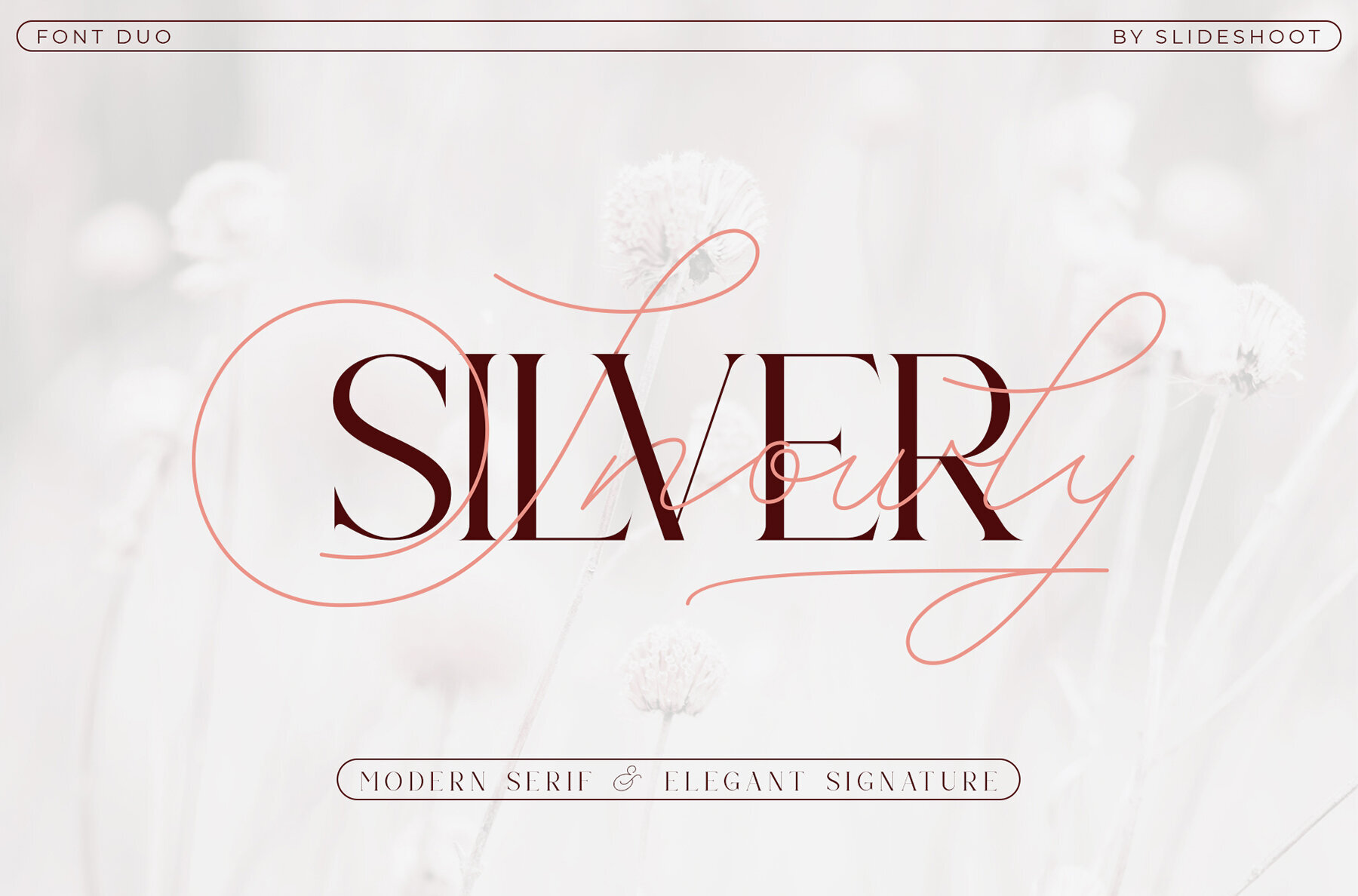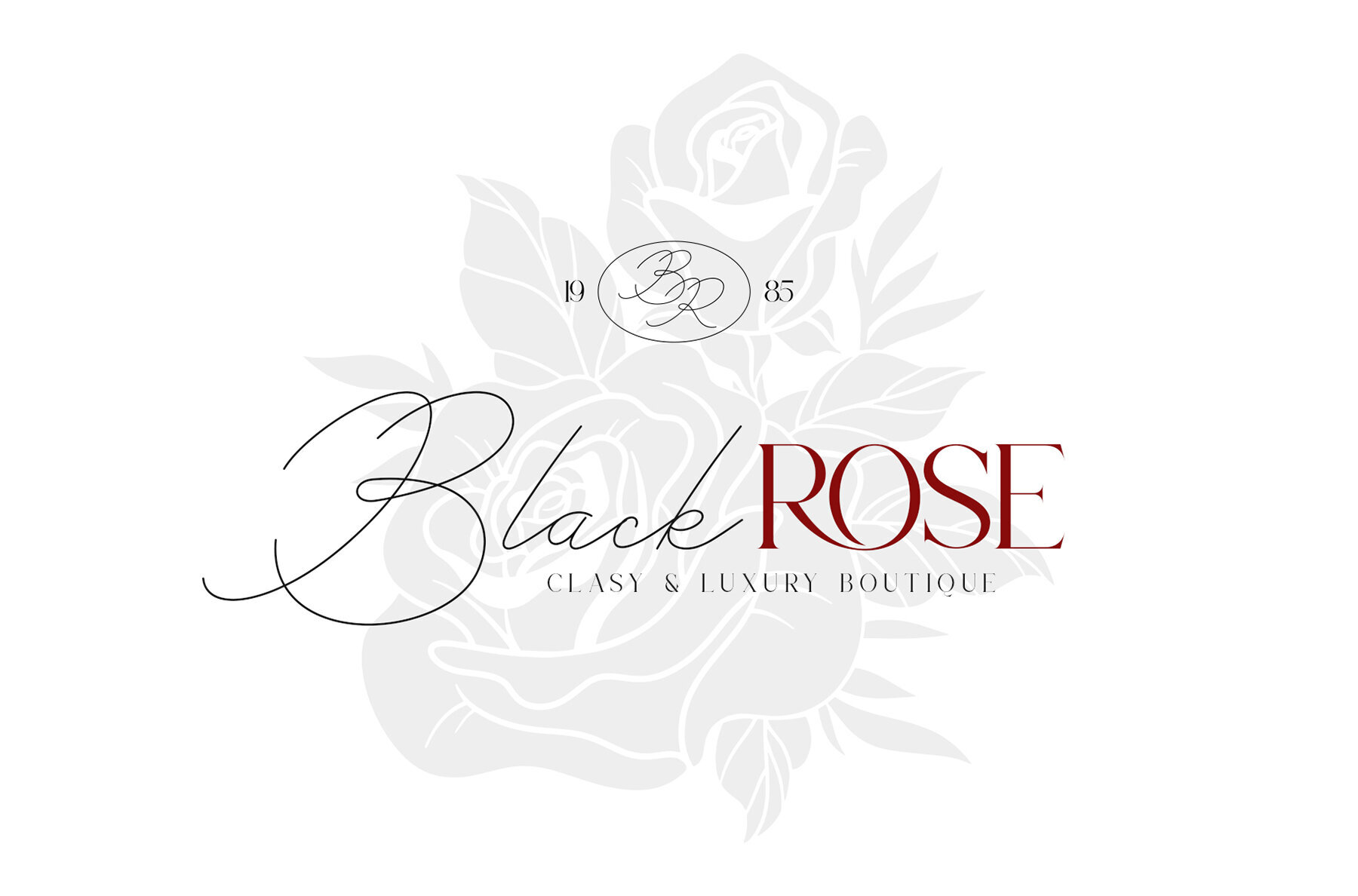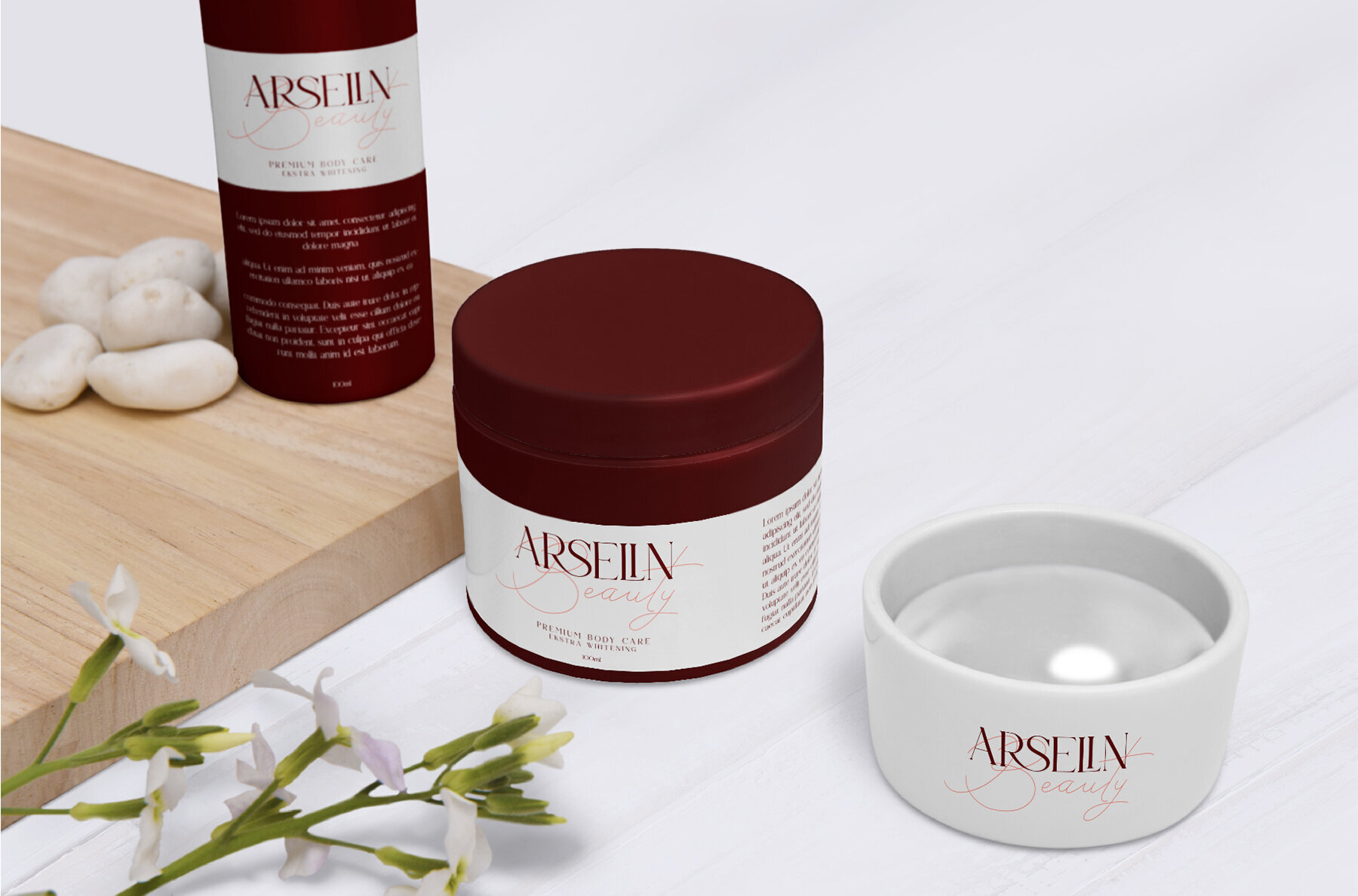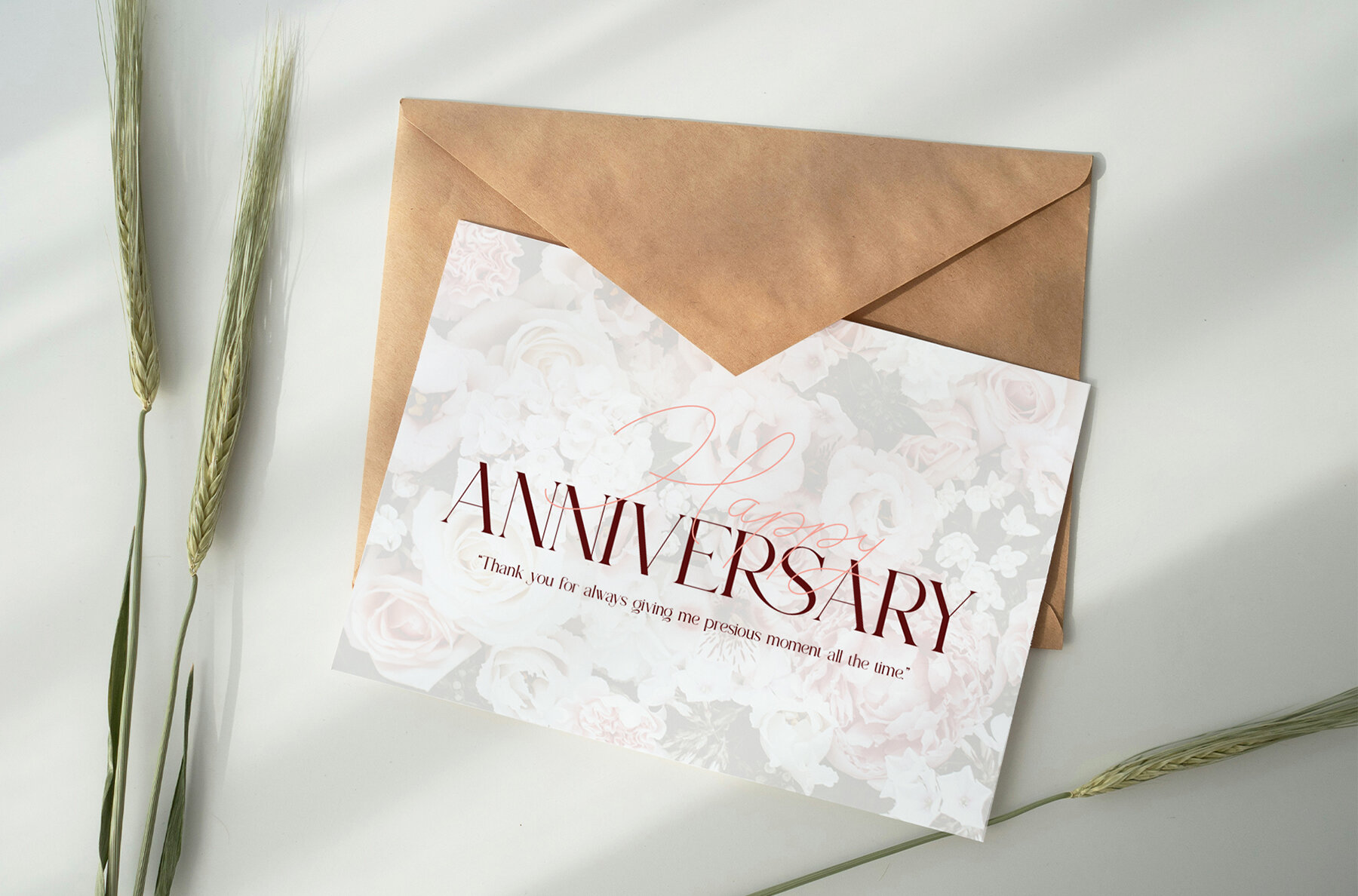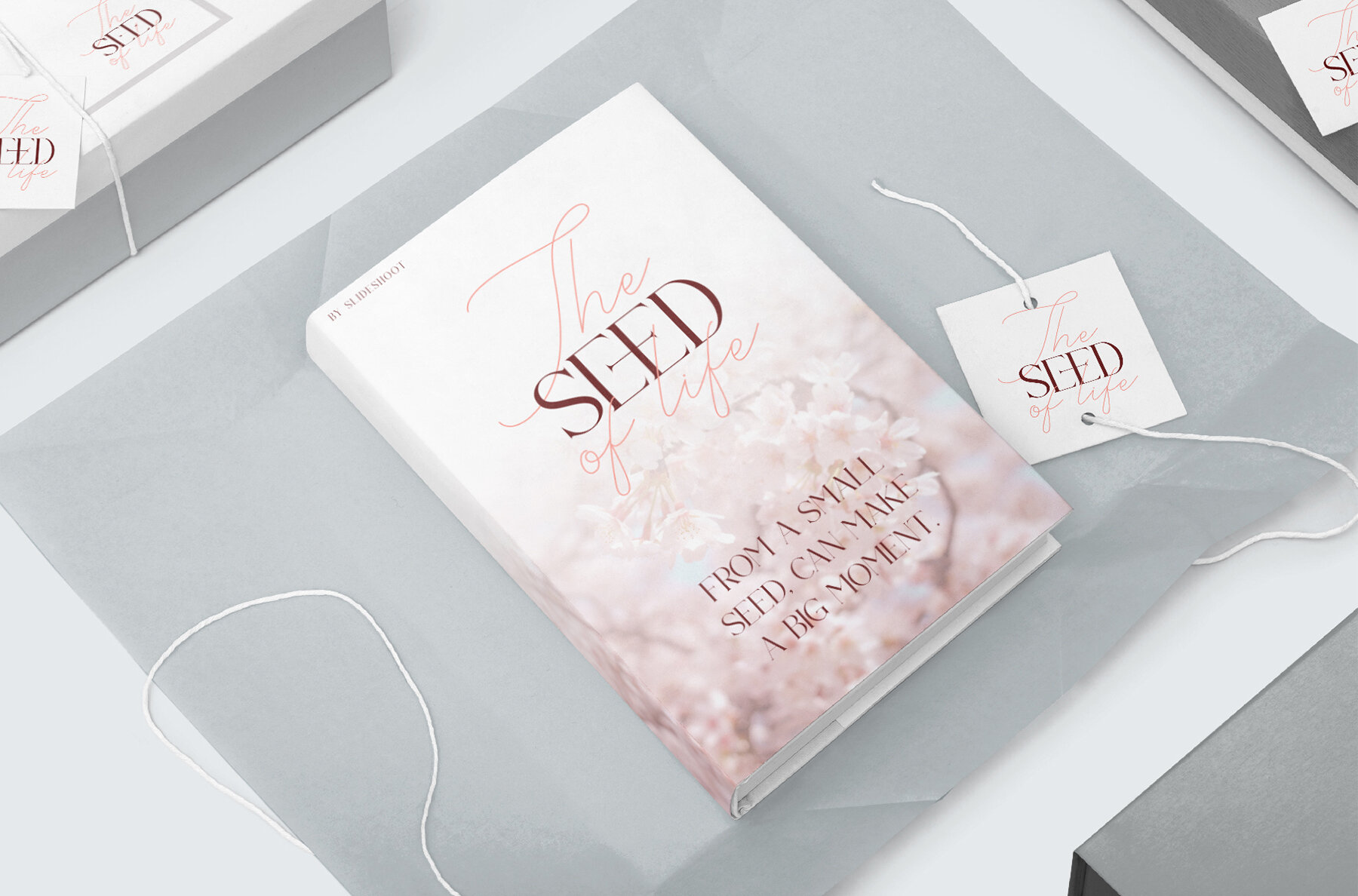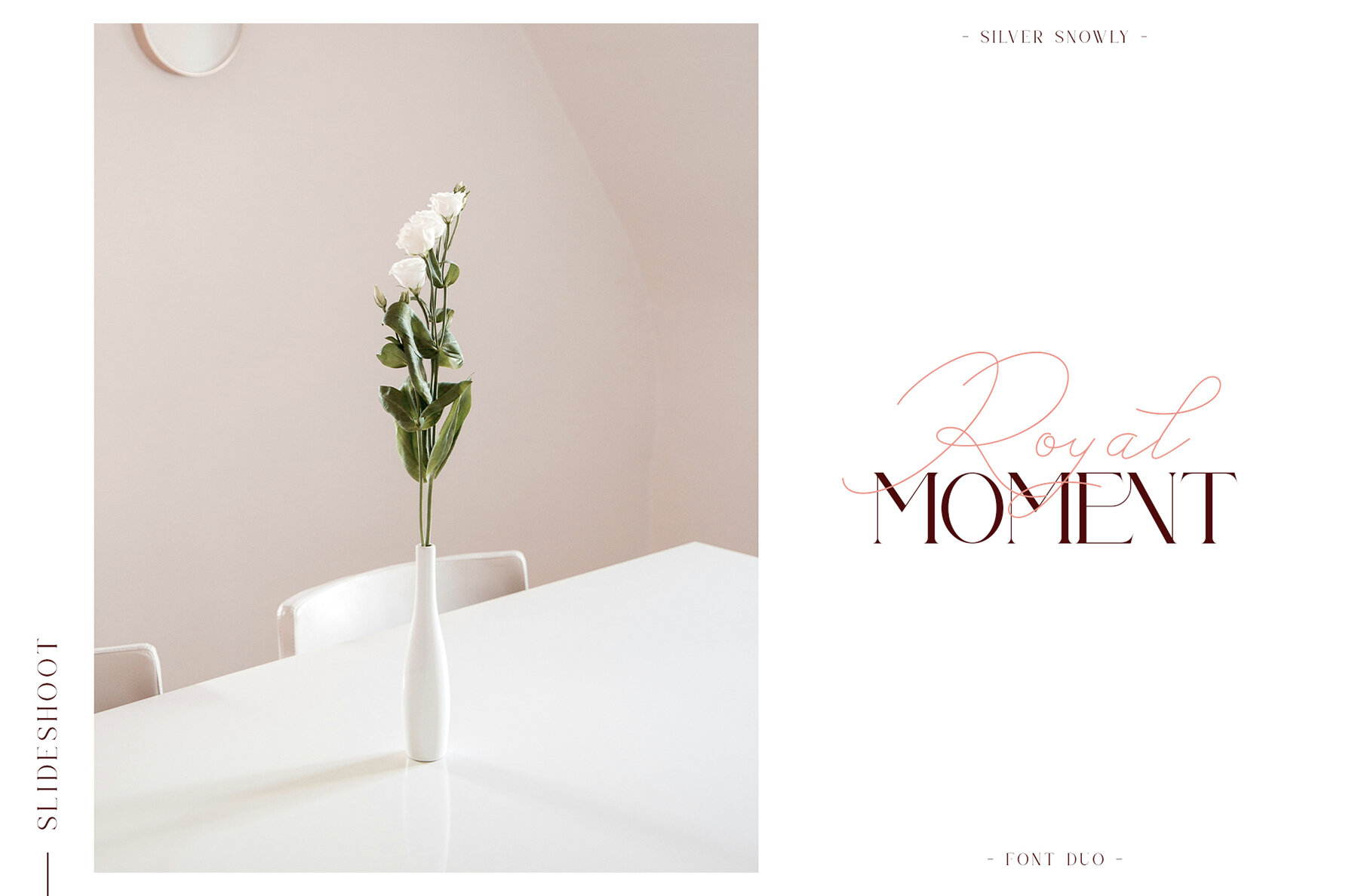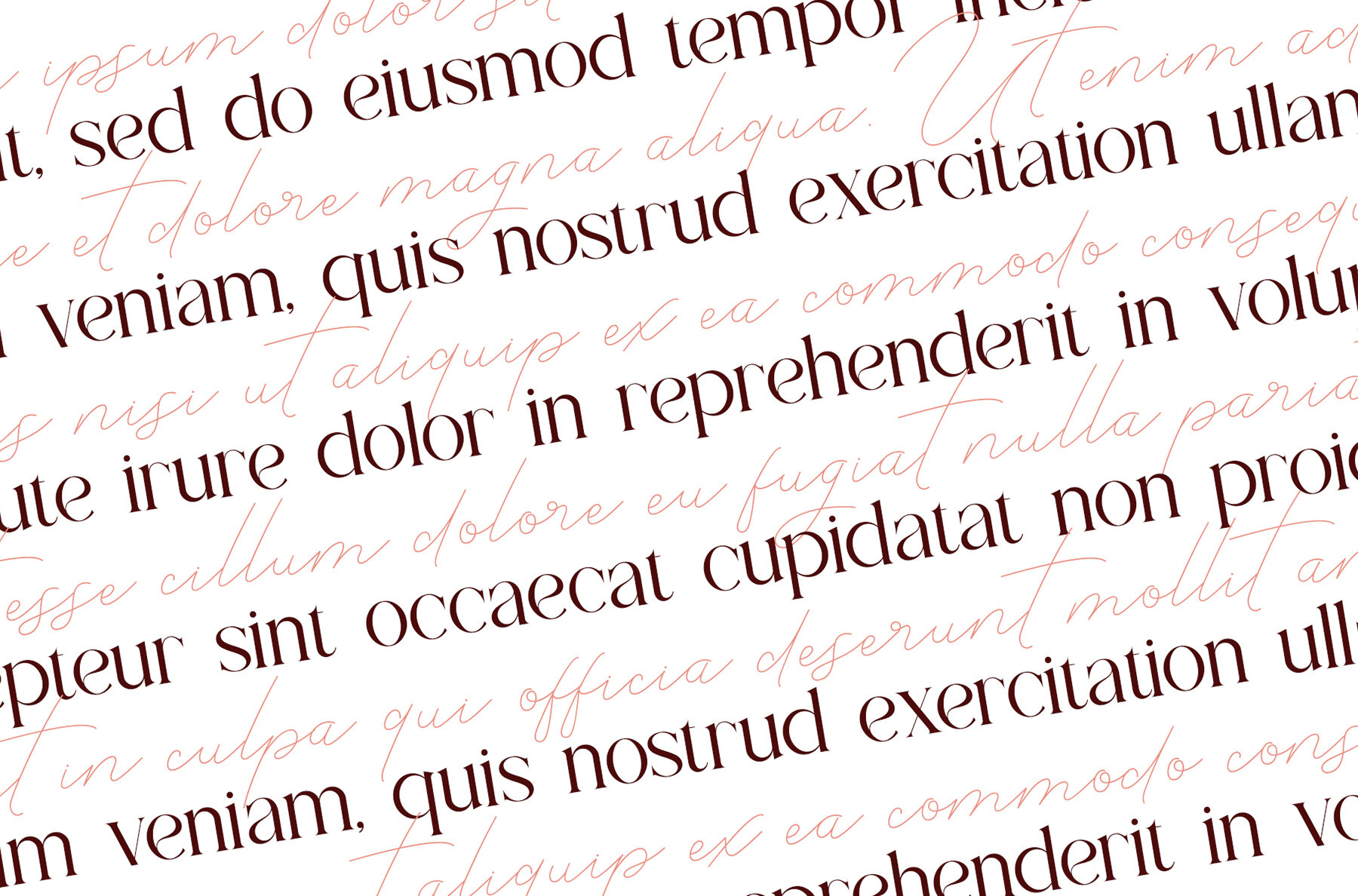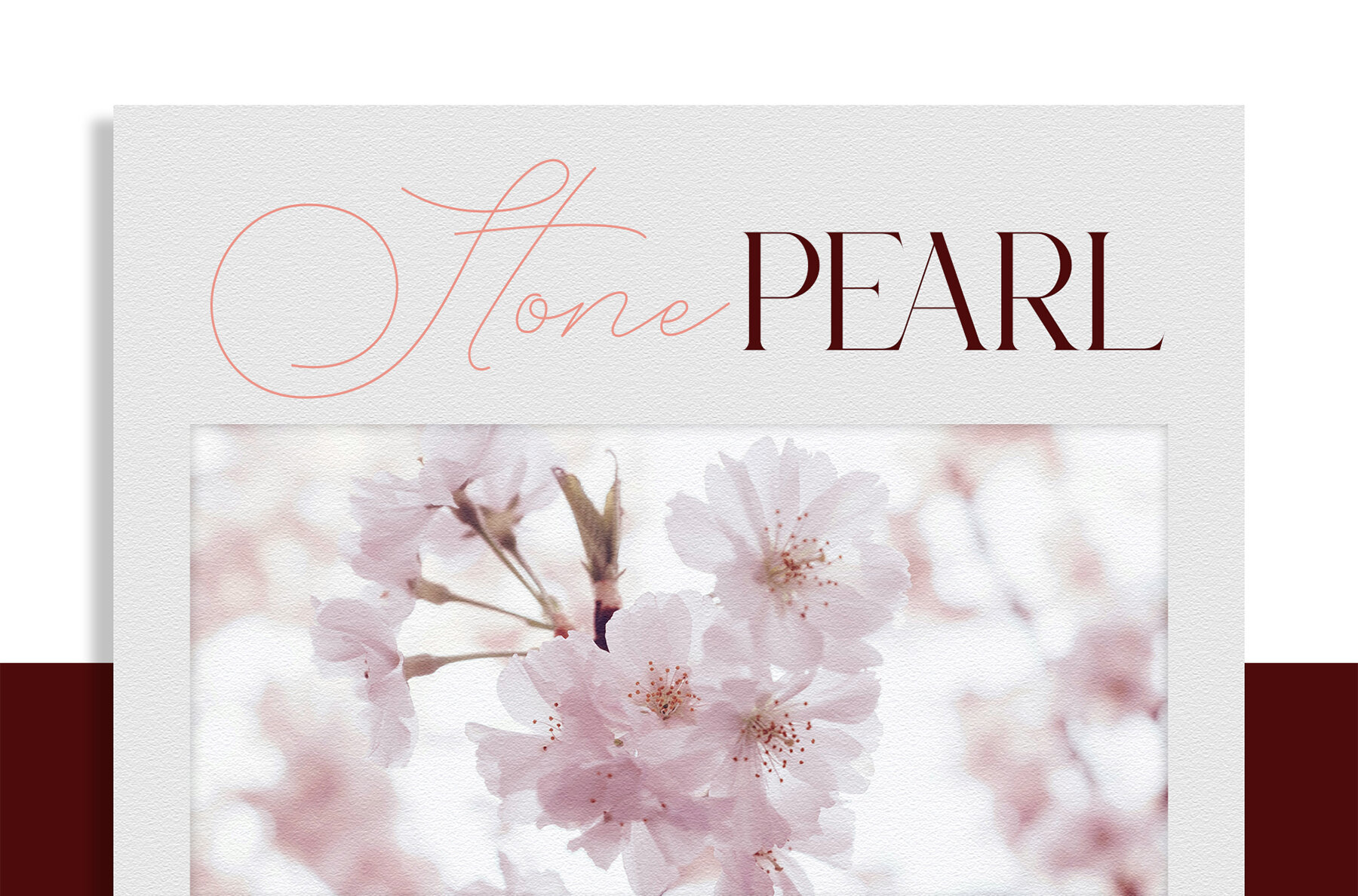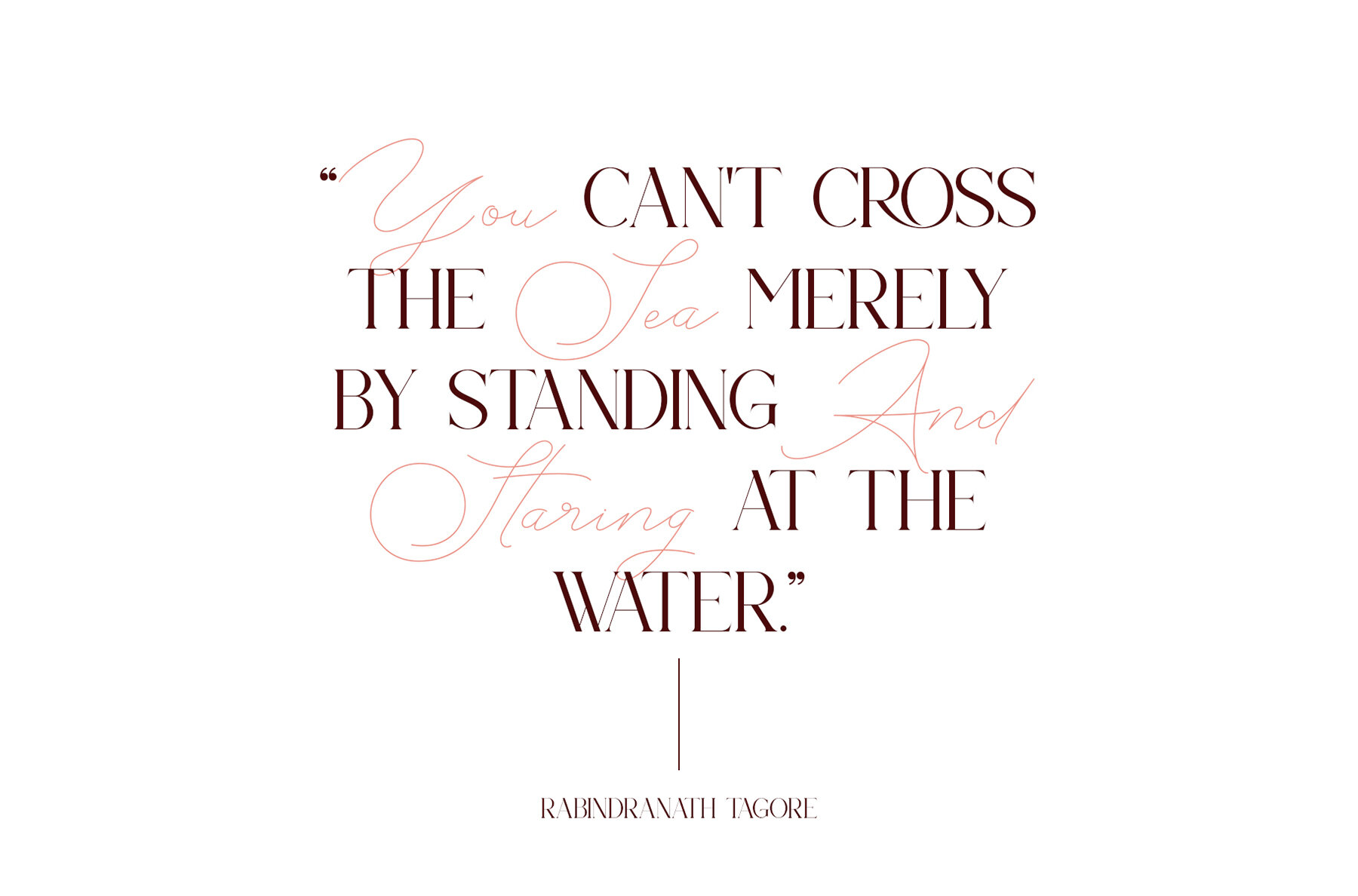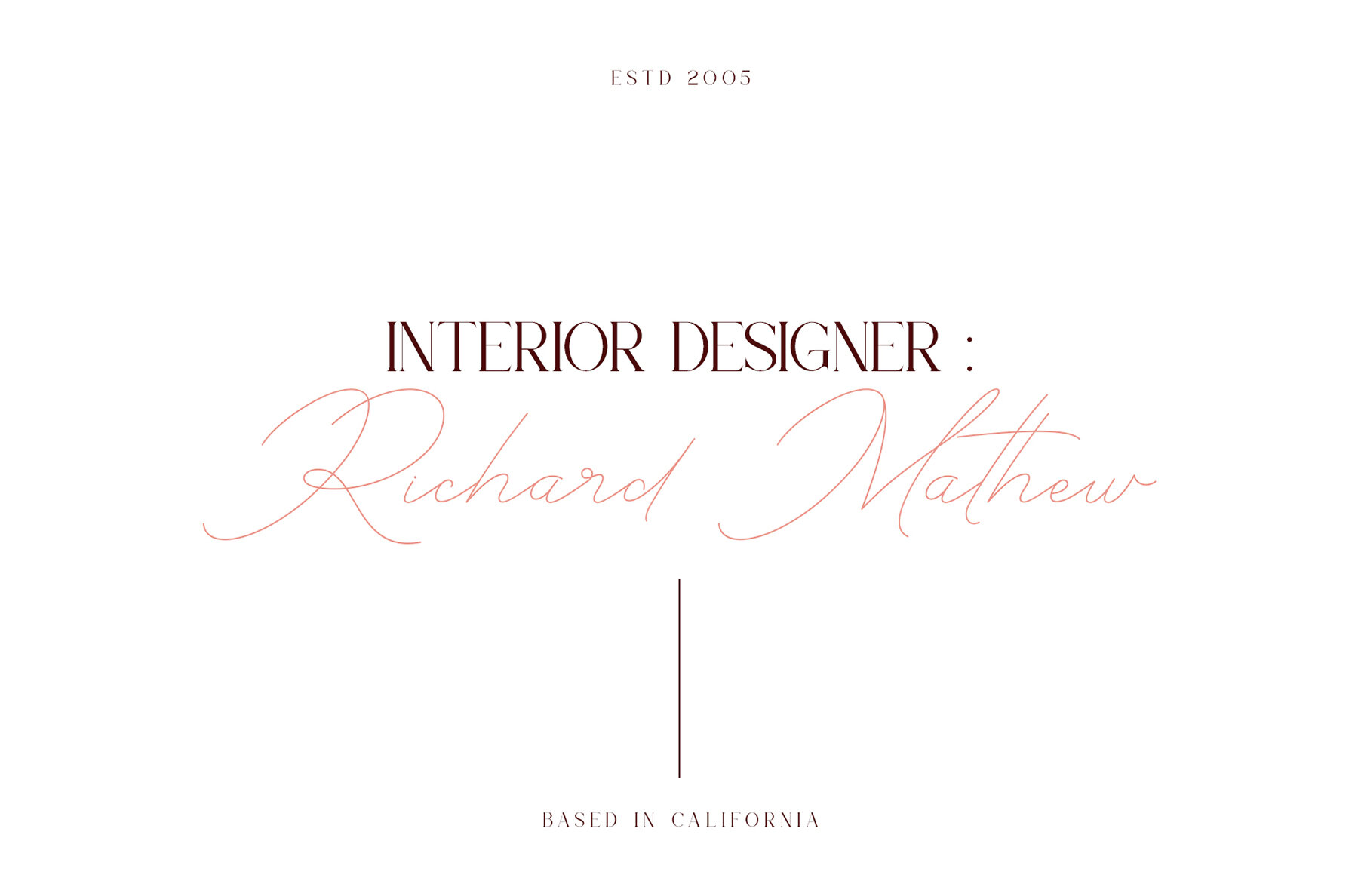
Silver Snowly Font
Silver Snowly Font Duo is a balanced, smooth, elegant and stylish serif font. He has a beautiful character. It fits perfectly with invitation card designs, company logos, movie titles, movie names, business cards, book titles, brand names and various other designs. Silver Snowly Font Duo is a subtle serif font that exudes sophistication and elegance. Its stylish alternations and ligatures make this font the perfect partner for any project. FEATURE: